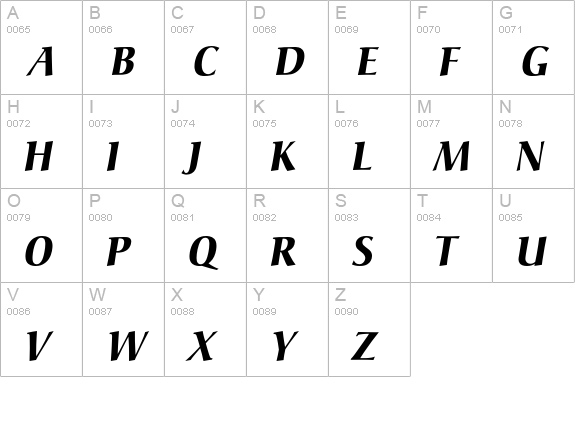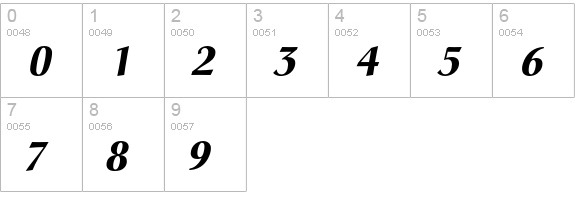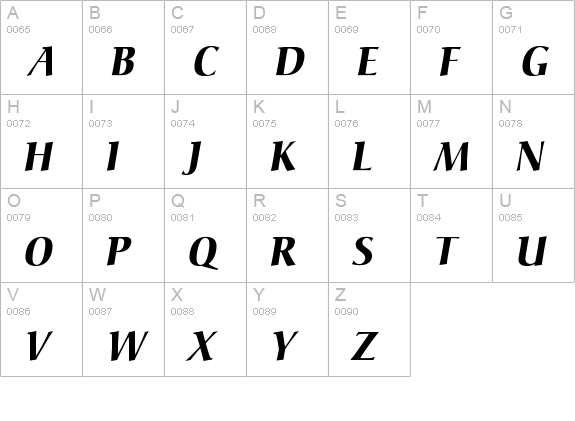
Christiana BQ Bold Italic is a strong, high-contrast, italic variant in the Christiana typeface family \xE2\x80\x94 well suited to headlines, attention-grabbing titles, and strong calls-to-action.
Christiana BQ Bold Italic font is a stunning and elegant typeface that exudes sophistication and style. With its bold and italic design, this font is perfect for making a statement and adding a touch of modernity to any project. The sleek curves and sharp angles of Christiana BQ Bold Italic create a visually appealing look that will captivate your audience. What's even better is that Christiana BQ Bold Italic font is available for free download at FontsMarket.com. This means you can easily access and use this beautiful font in your designs without any cost. Whether you're working on a branding project, website design, or print materials, Christiana BQ Bold Italic font will elevate your work and give it a professional touch. Download Christiana BQ Bold Italic font today from FontsMarket.com and start adding a touch of elegance to your designs.